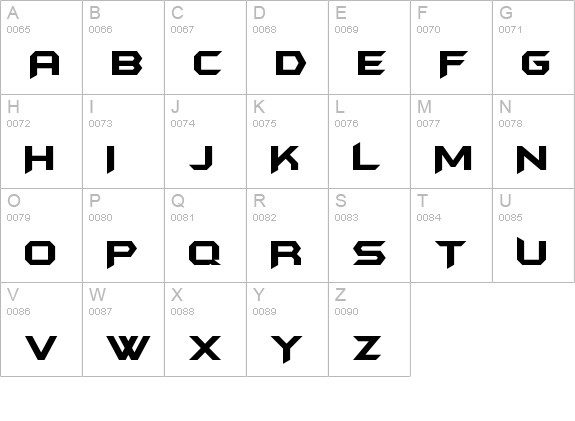
BatmanForeverAlternate Font Details
Introducing BatmanForeverAlternate font, a sleek and stylish typeface perfect for adding a touch of sophistication to your design projects. This alternate version of the classic Batman font features unique and intricate details that set it apart from the rest. With its bold and dynamic appearance, BatmanForeverAlternate font is sure to make a statement in any design. Best of all, this font is available for free download at FontsMarket.com. Don't miss out on the opportunity to enhance your designs with this eye-catching and versatile font. Download BatmanForeverAlternate font today and take your projects to the next level!